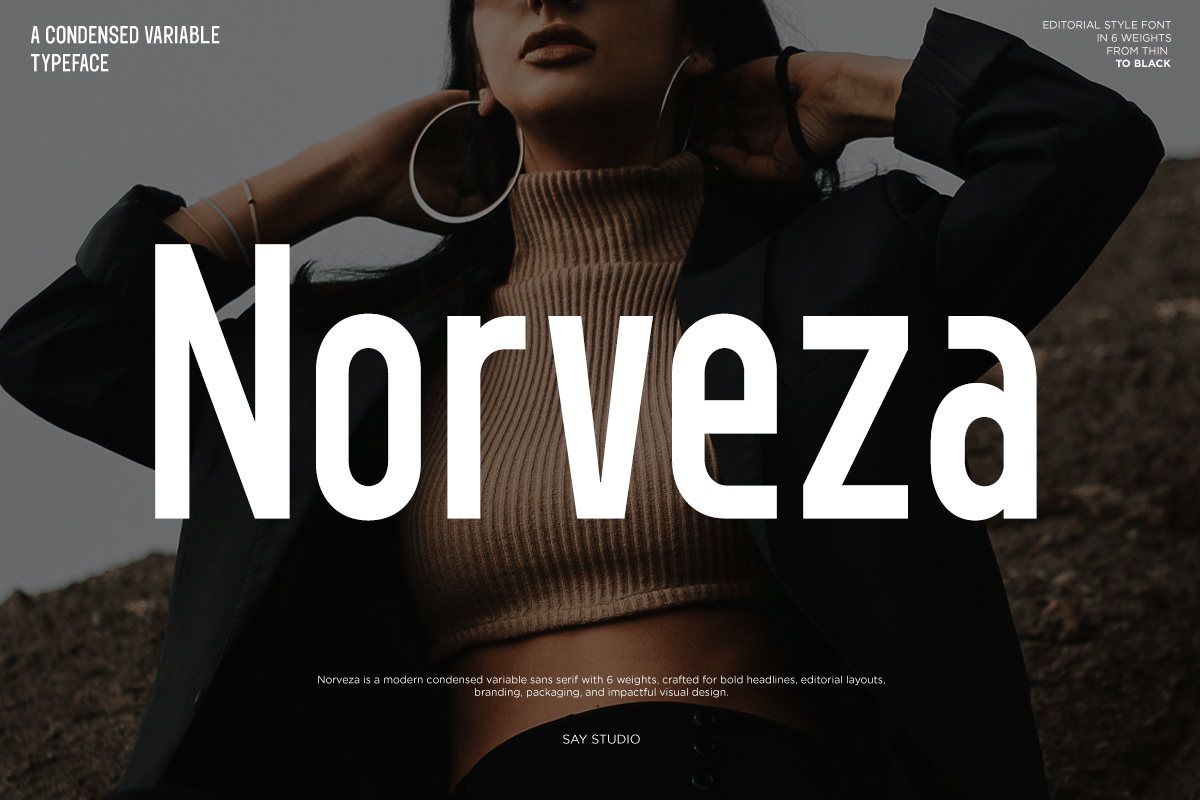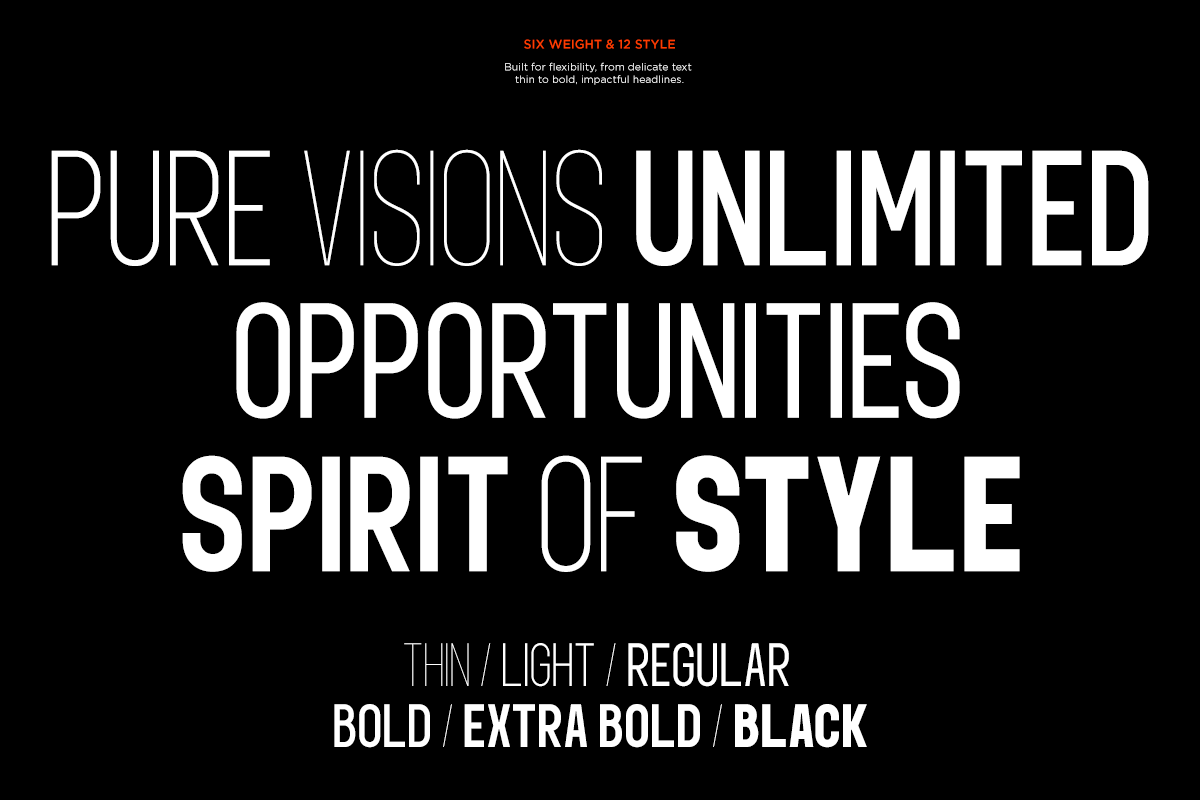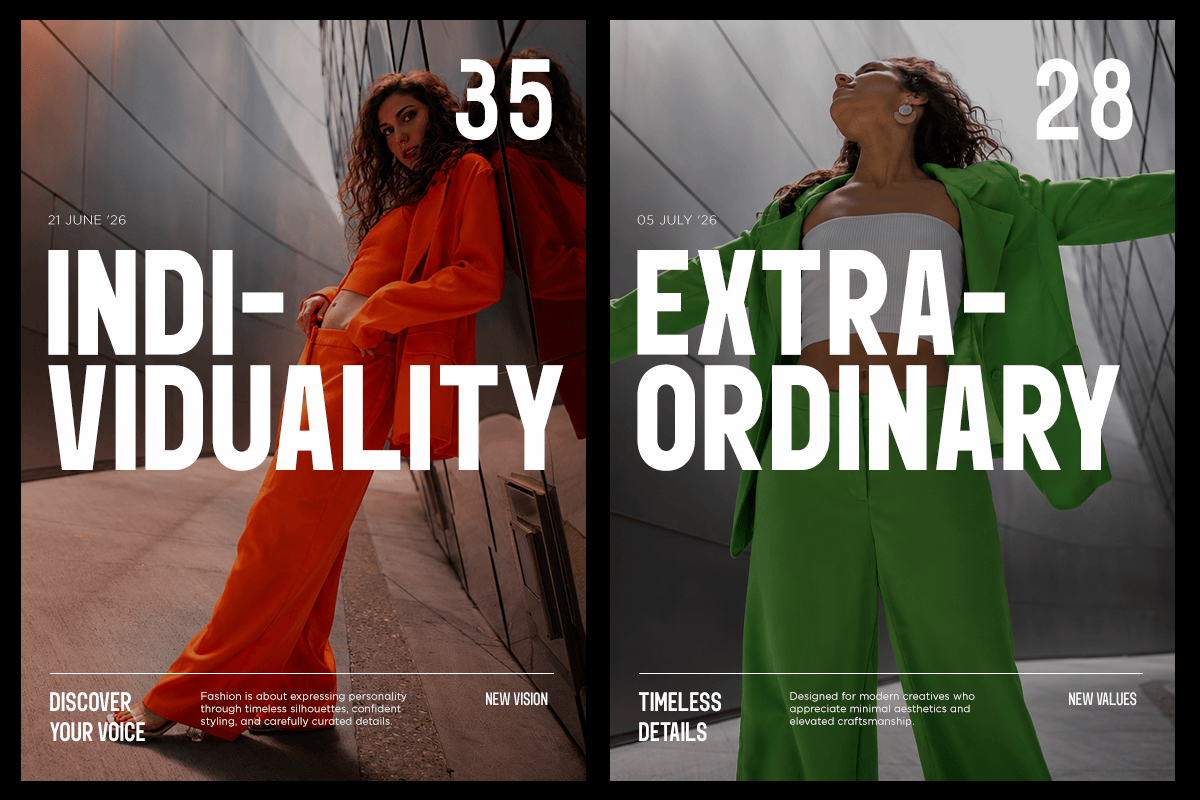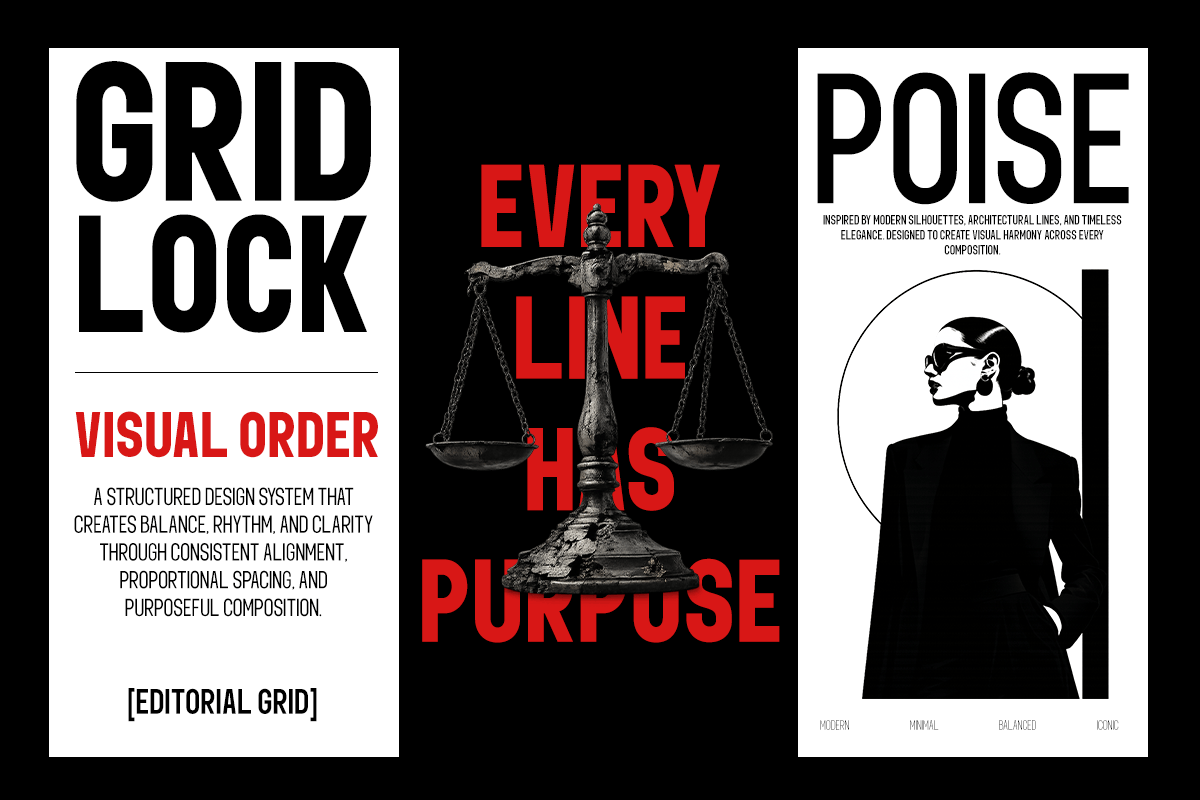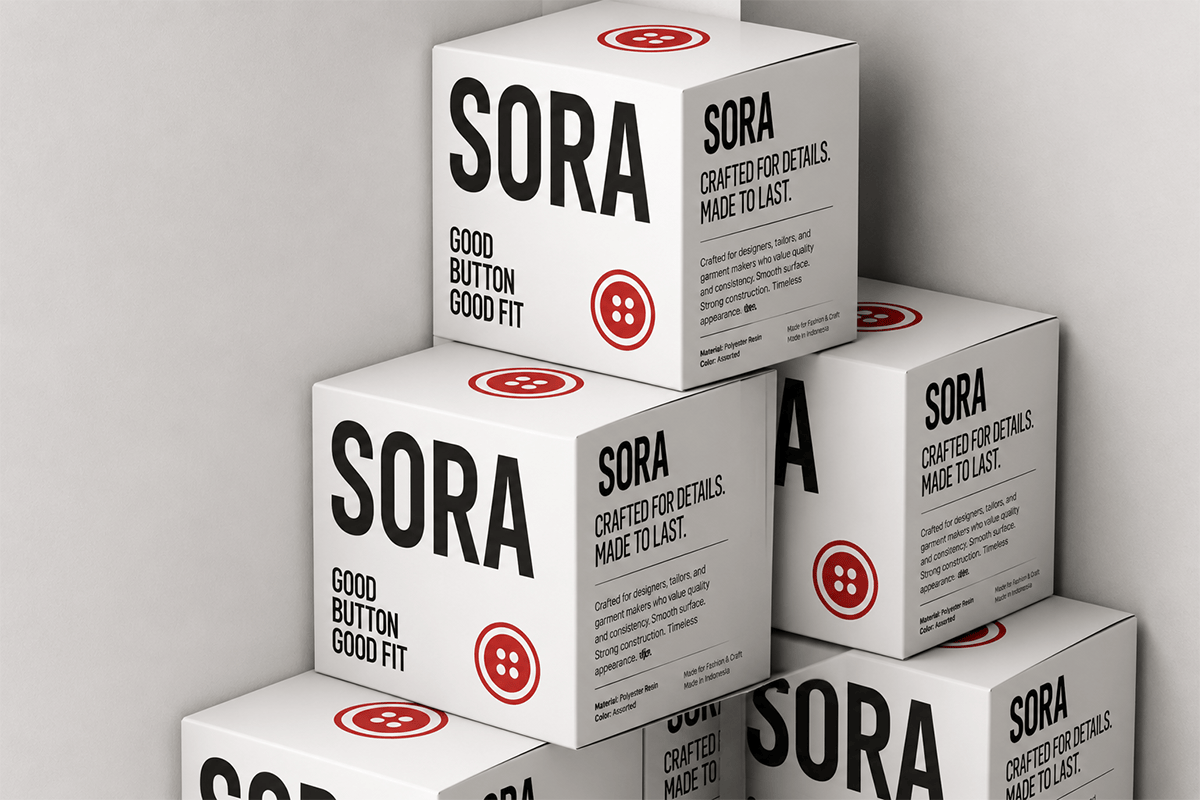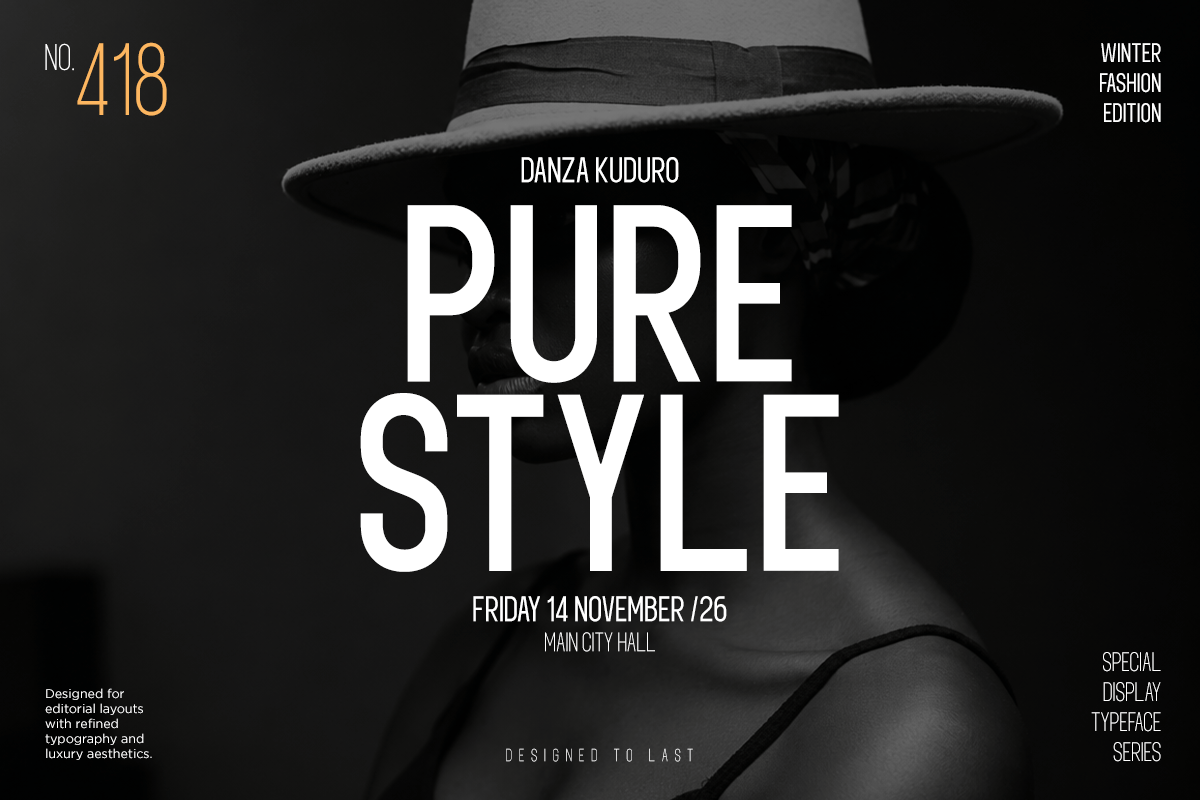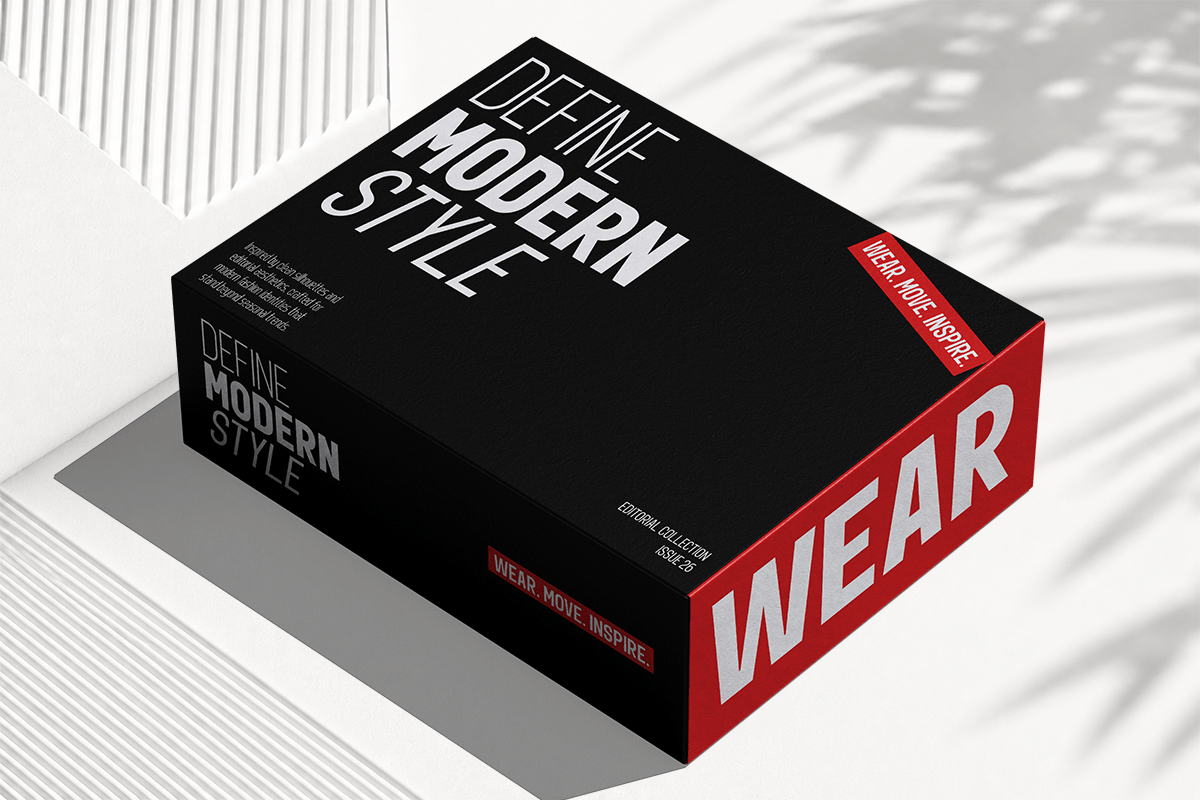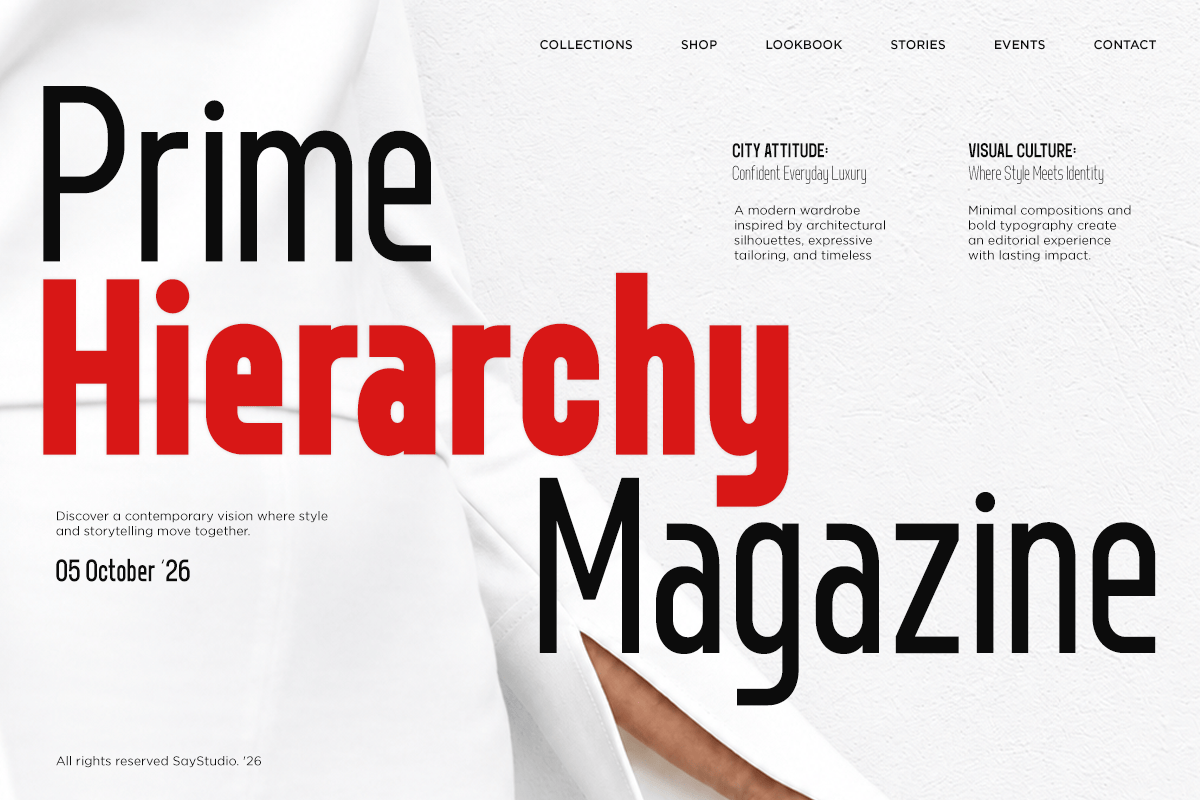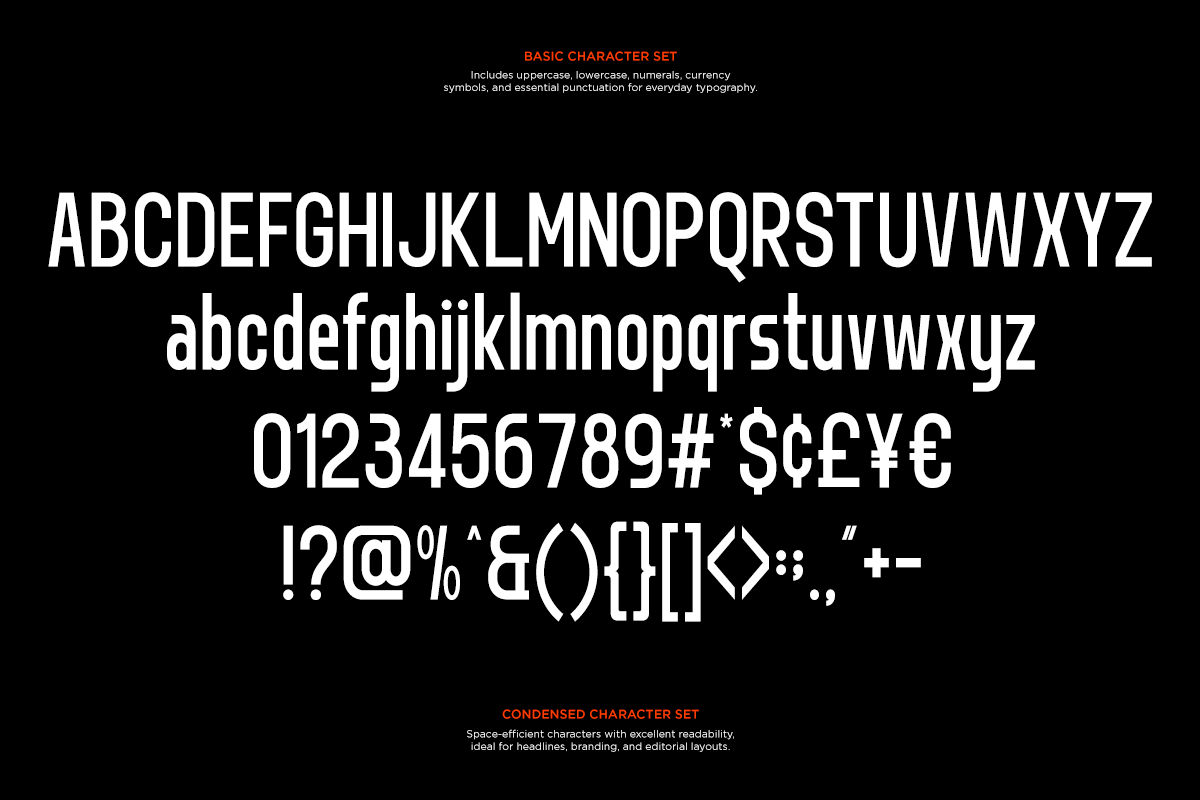
Norveza – Family Condensed Sans Serif Font
Norveza is a modern condensed sans serif font family crafted for bold headlines, impactful branding, and contemporary editorial design. Featuring a clean geometric structure with powerful proportions, it delivers excellent readability while maintaining a strong visual presence. The family includes multiple weights from Thin to Black, plus matching italics, making it highly versatile for professional design projects.
Whether you’re creating posters, magazines, fashion campaigns, packaging, logos, websites, advertising, social media graphics, or corporate branding, Norveza adapts effortlessly to both minimalist and expressive layouts. Its condensed width helps maximize space while producing striking typography that captures attention.
- 6 Variable Weight
- Thin to Black
- Regular and Italic
- Number, Symbol, and Punctuation